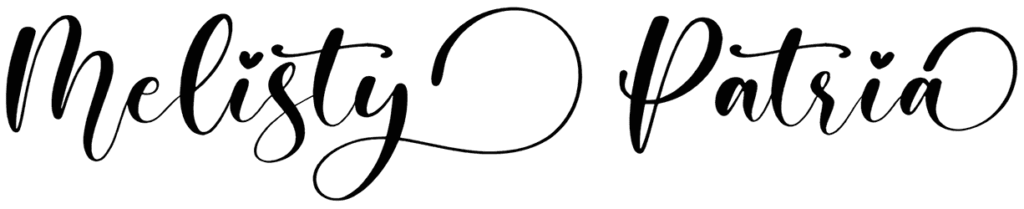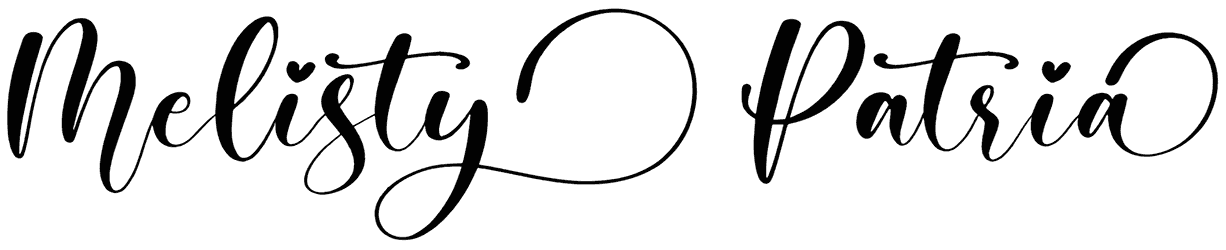
Melisty Patria Font
Show pure love in your design with a charming calligraphy font. Melisty Patria with gentle curves is an elegant design for wedding stationery, greeting cards, cosmetics ads, or a lot more others the same. This feminine font supports all characters in two versions that can provide a nice chance to make more mixes.